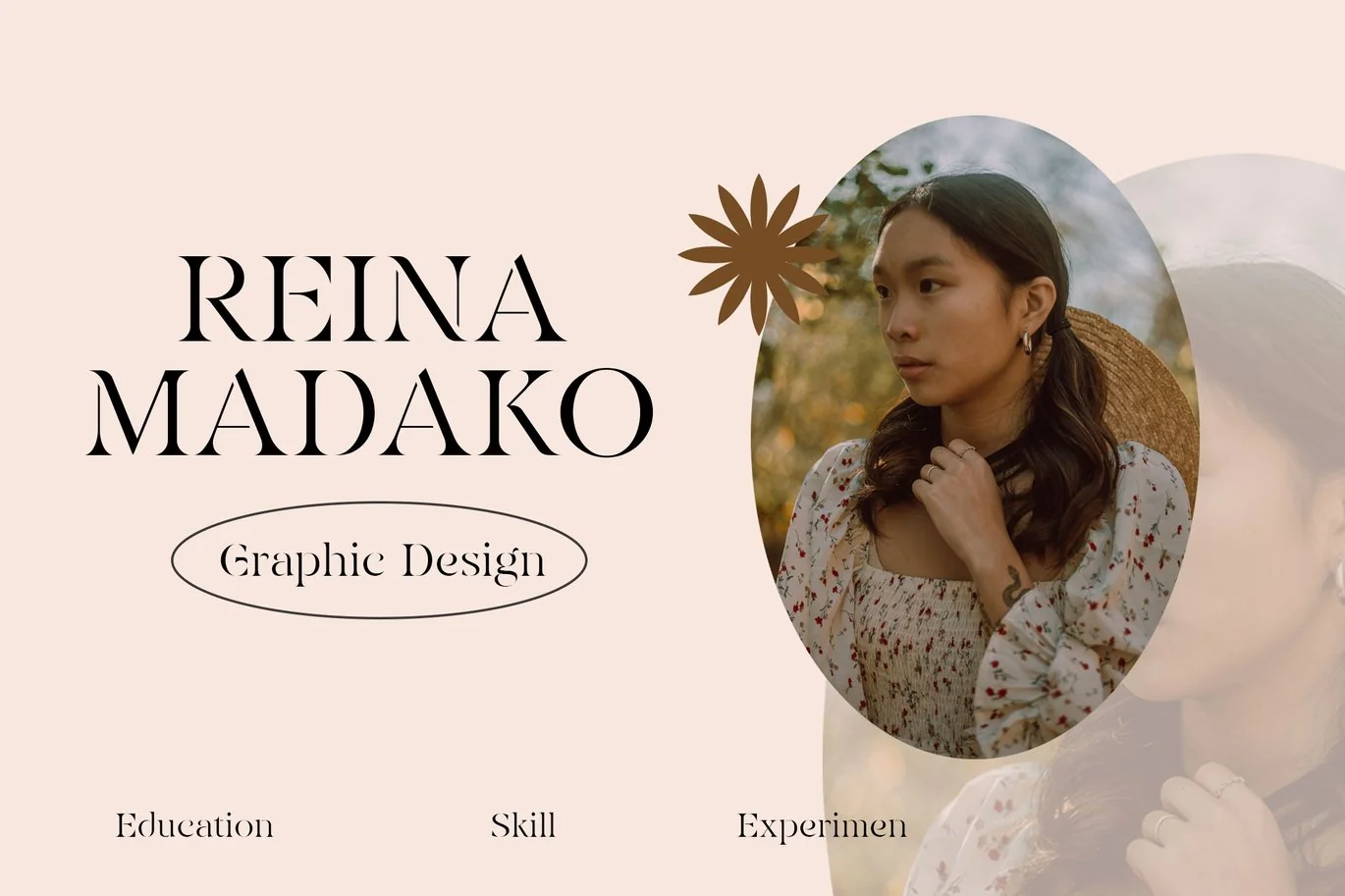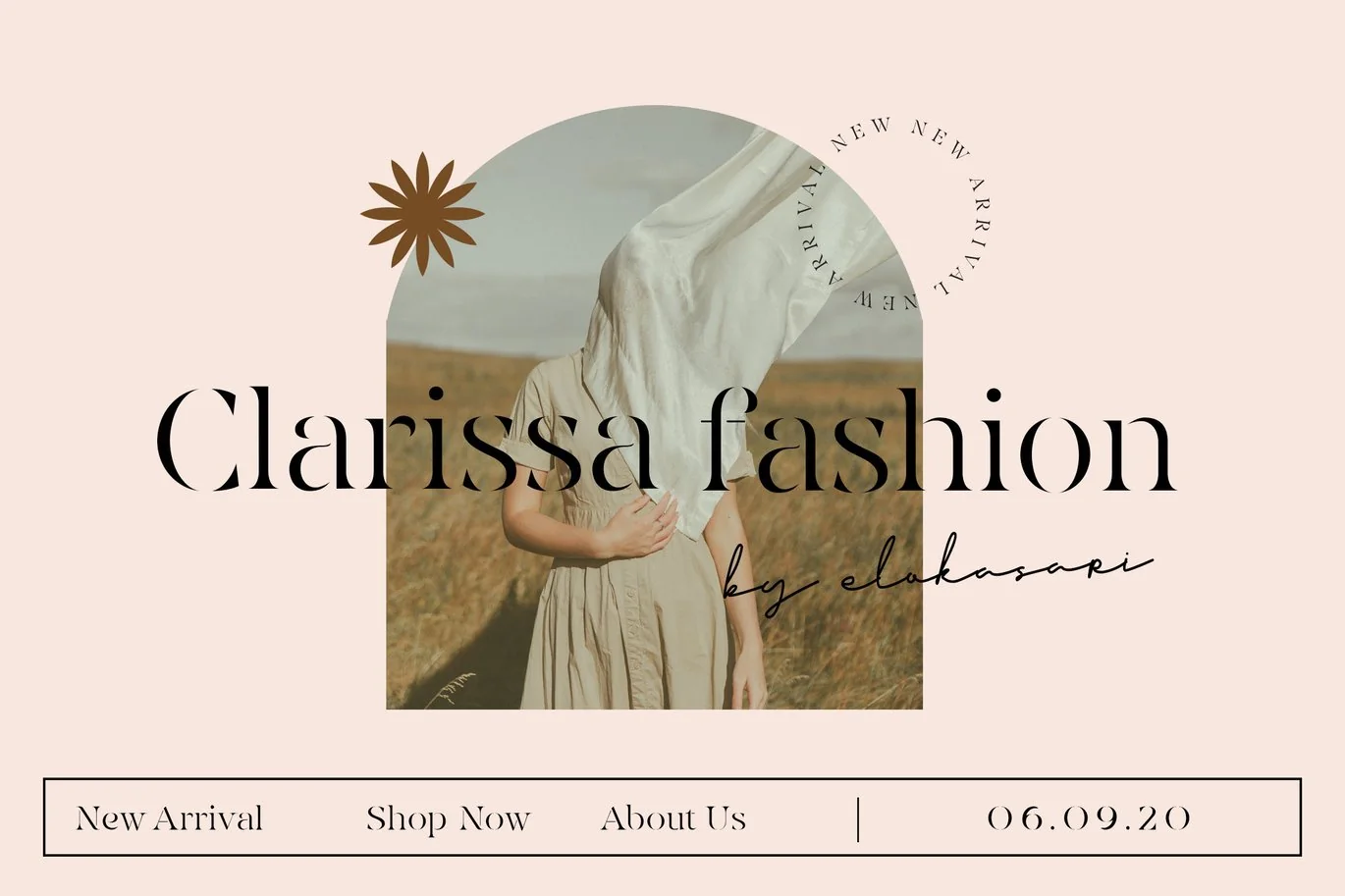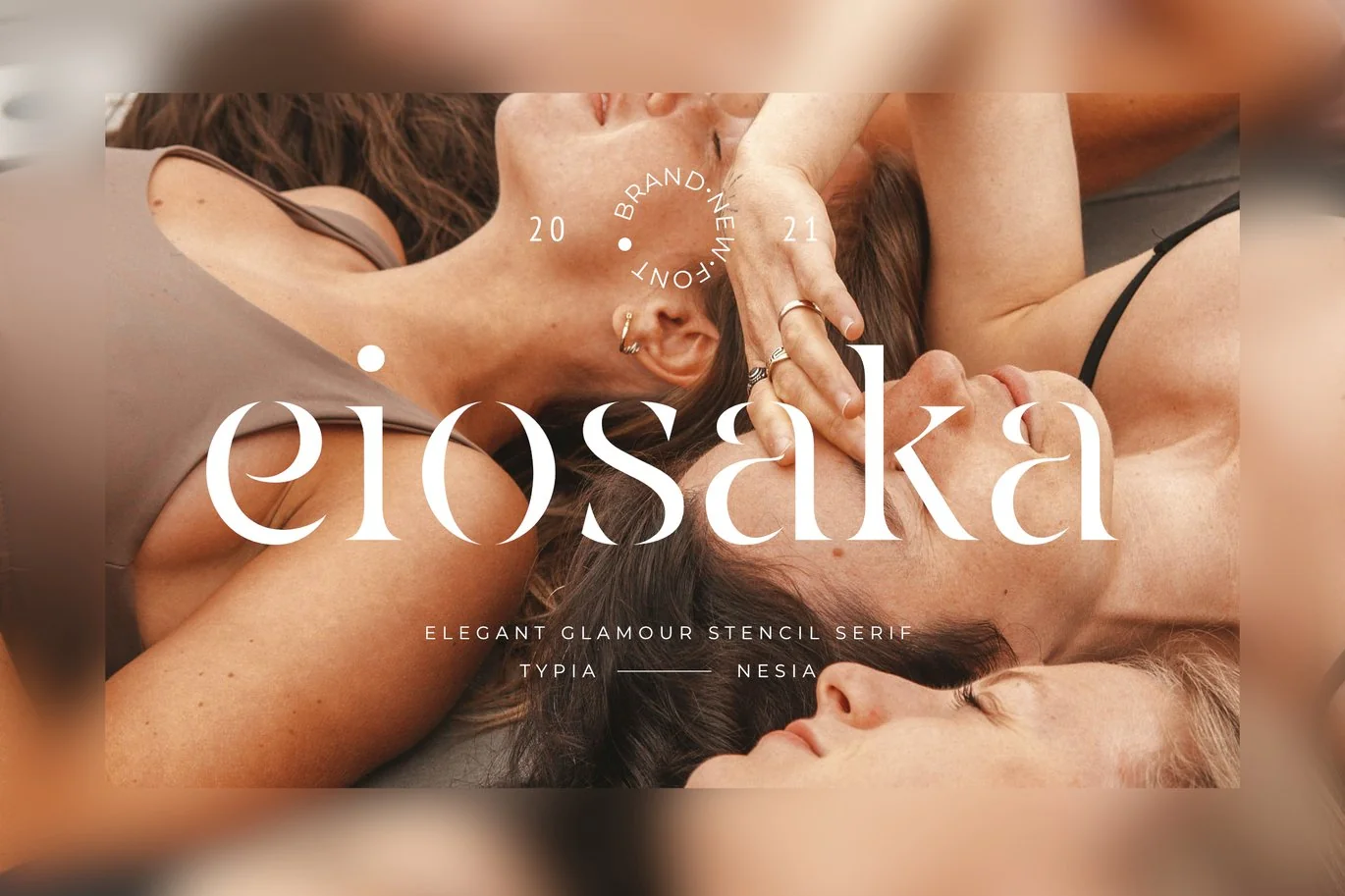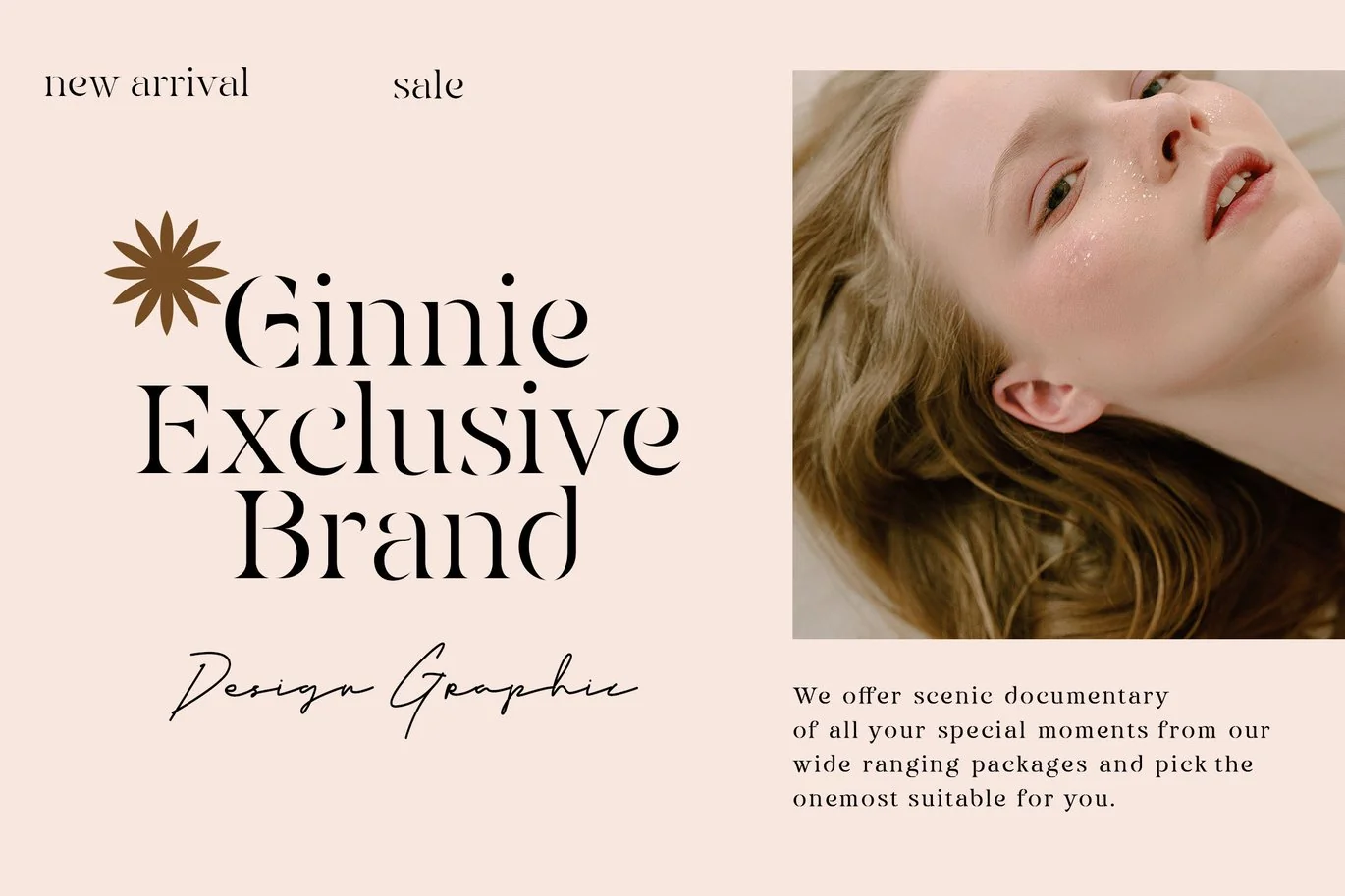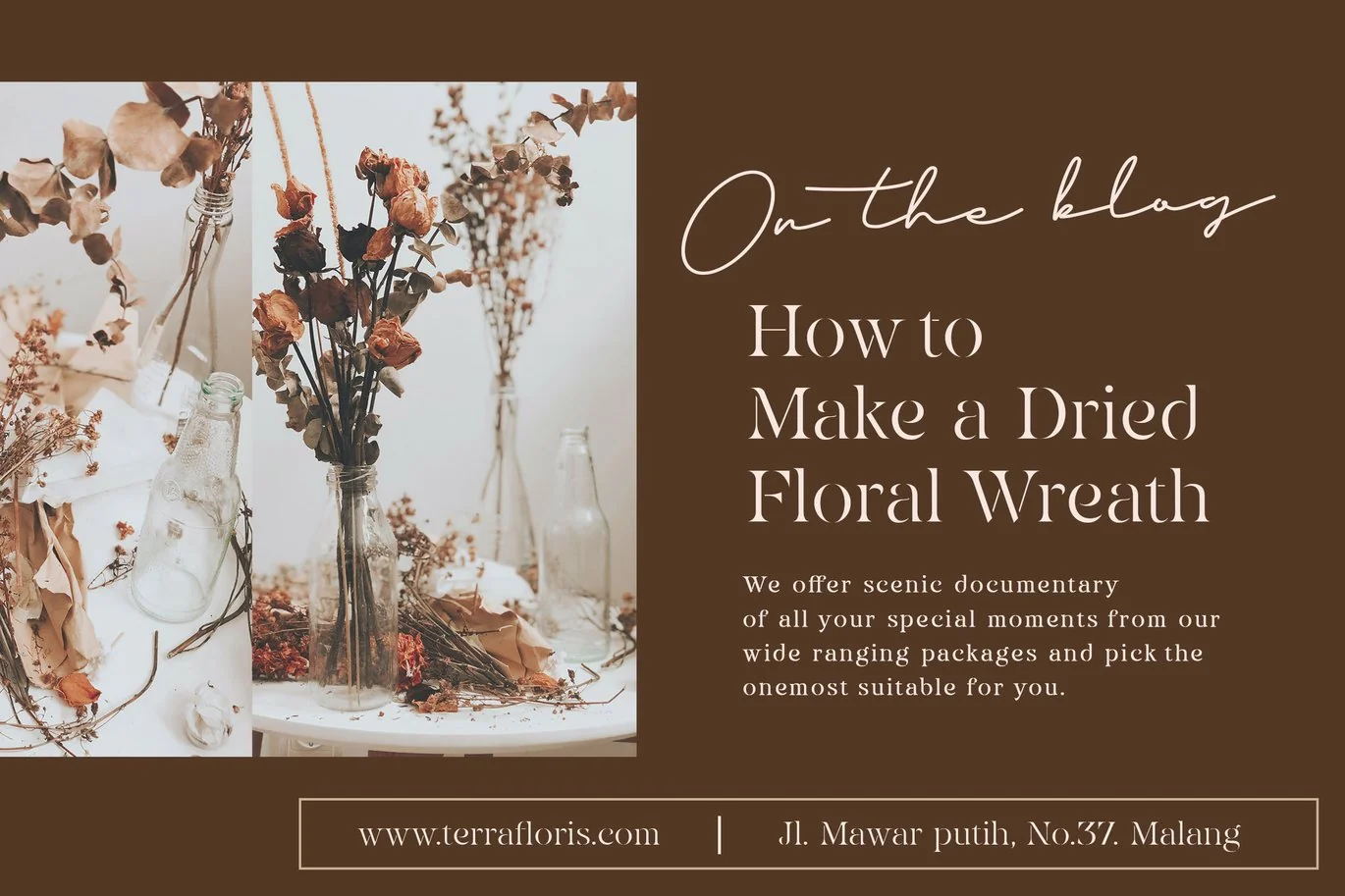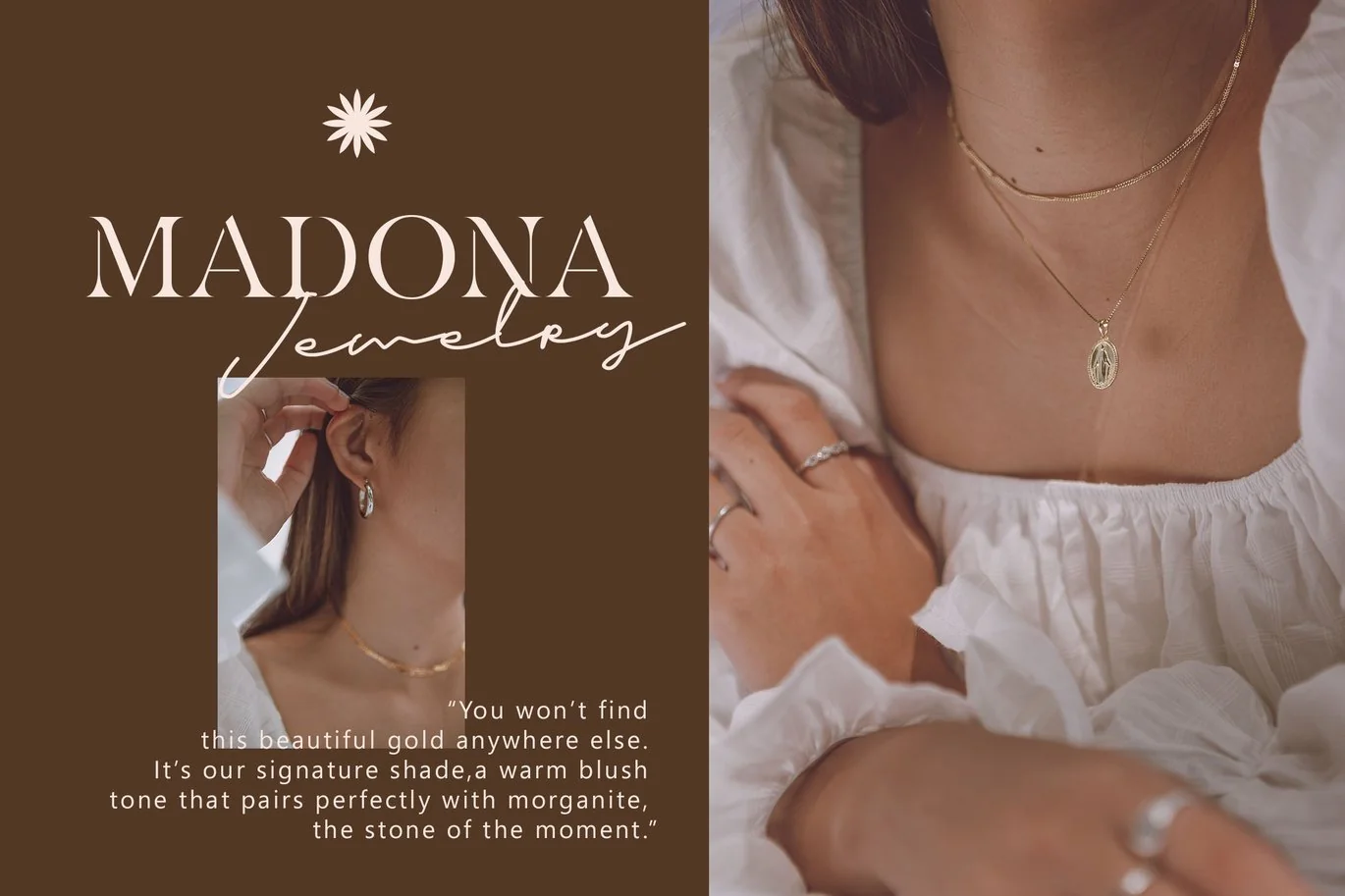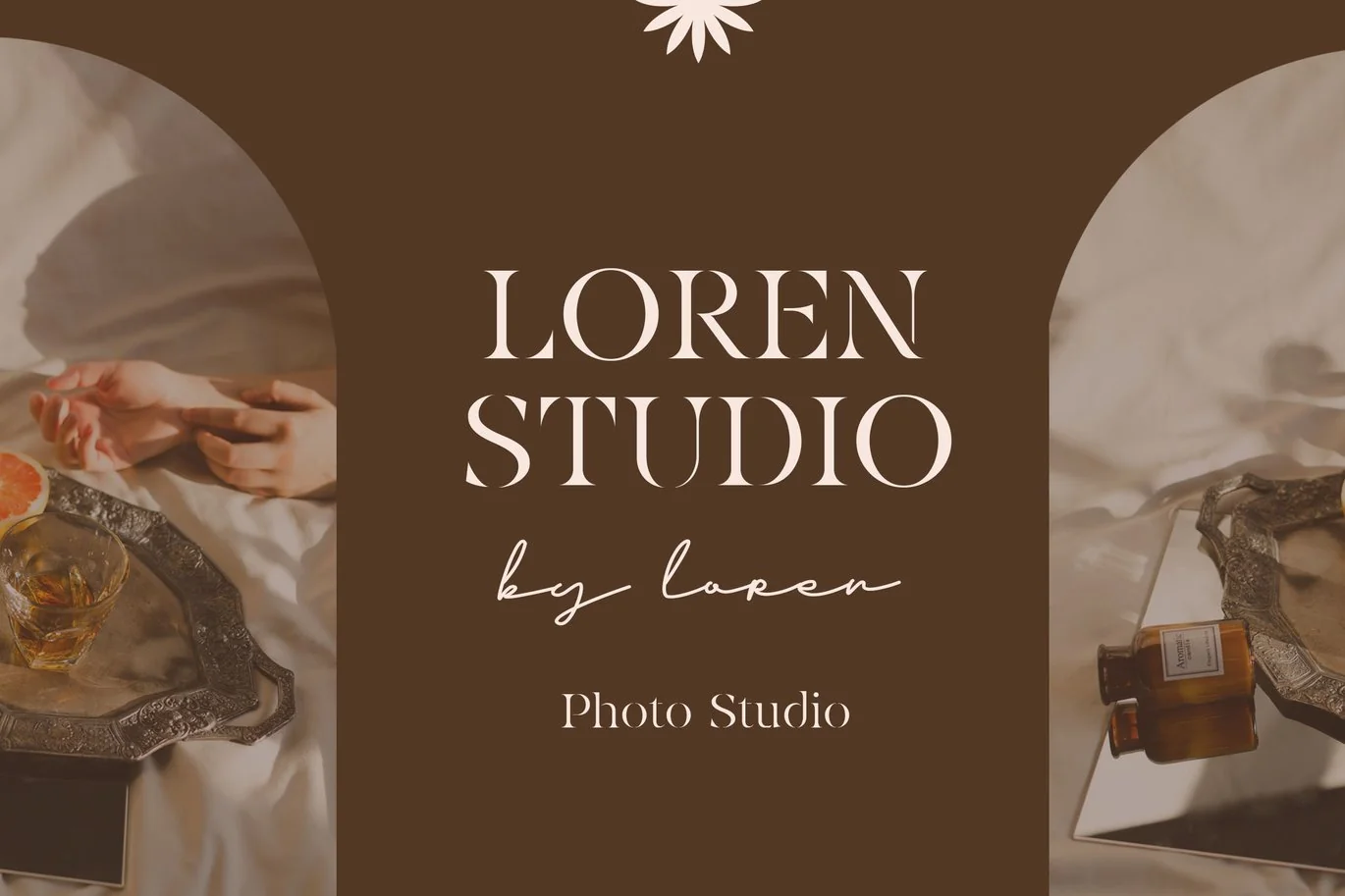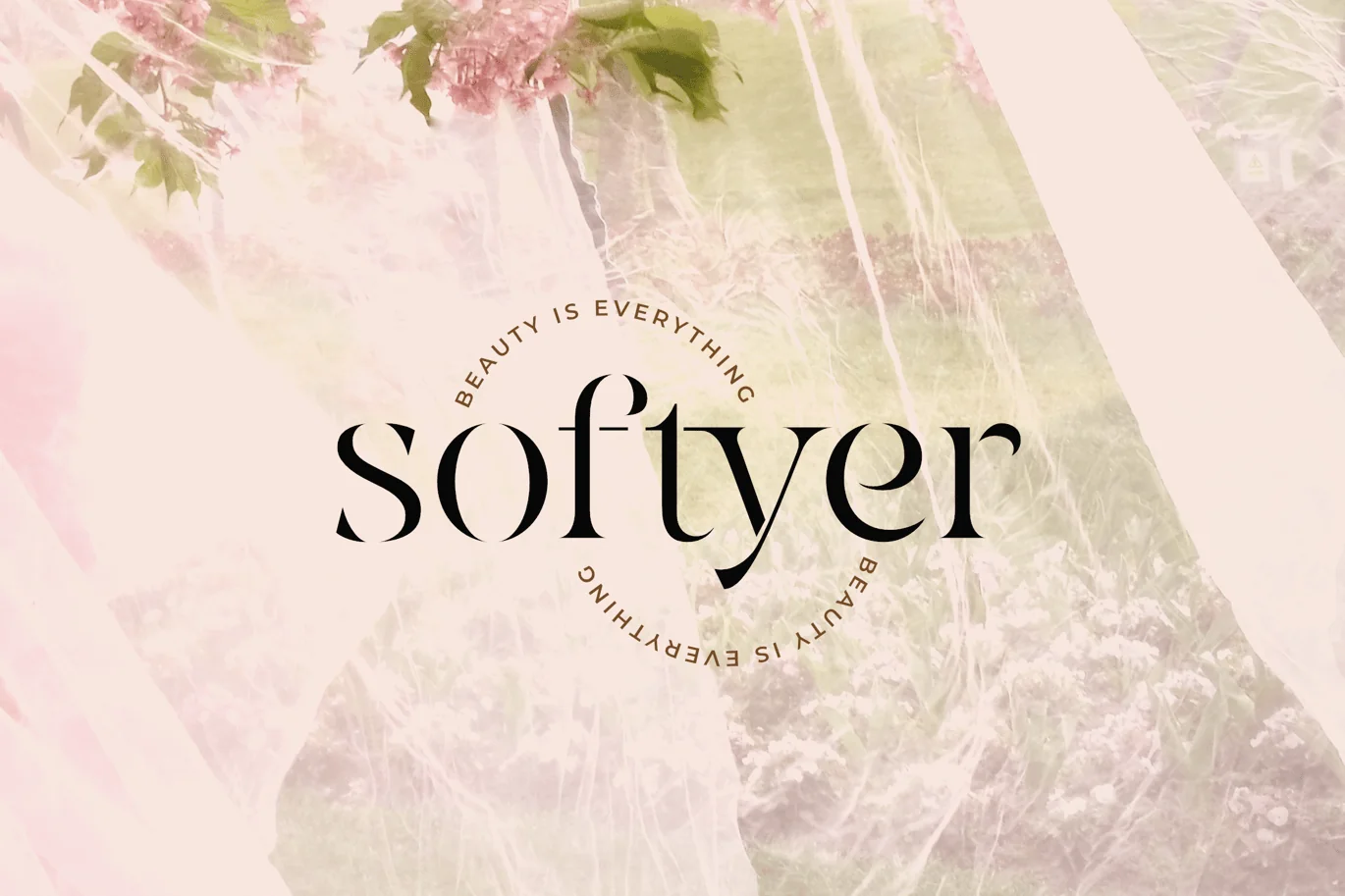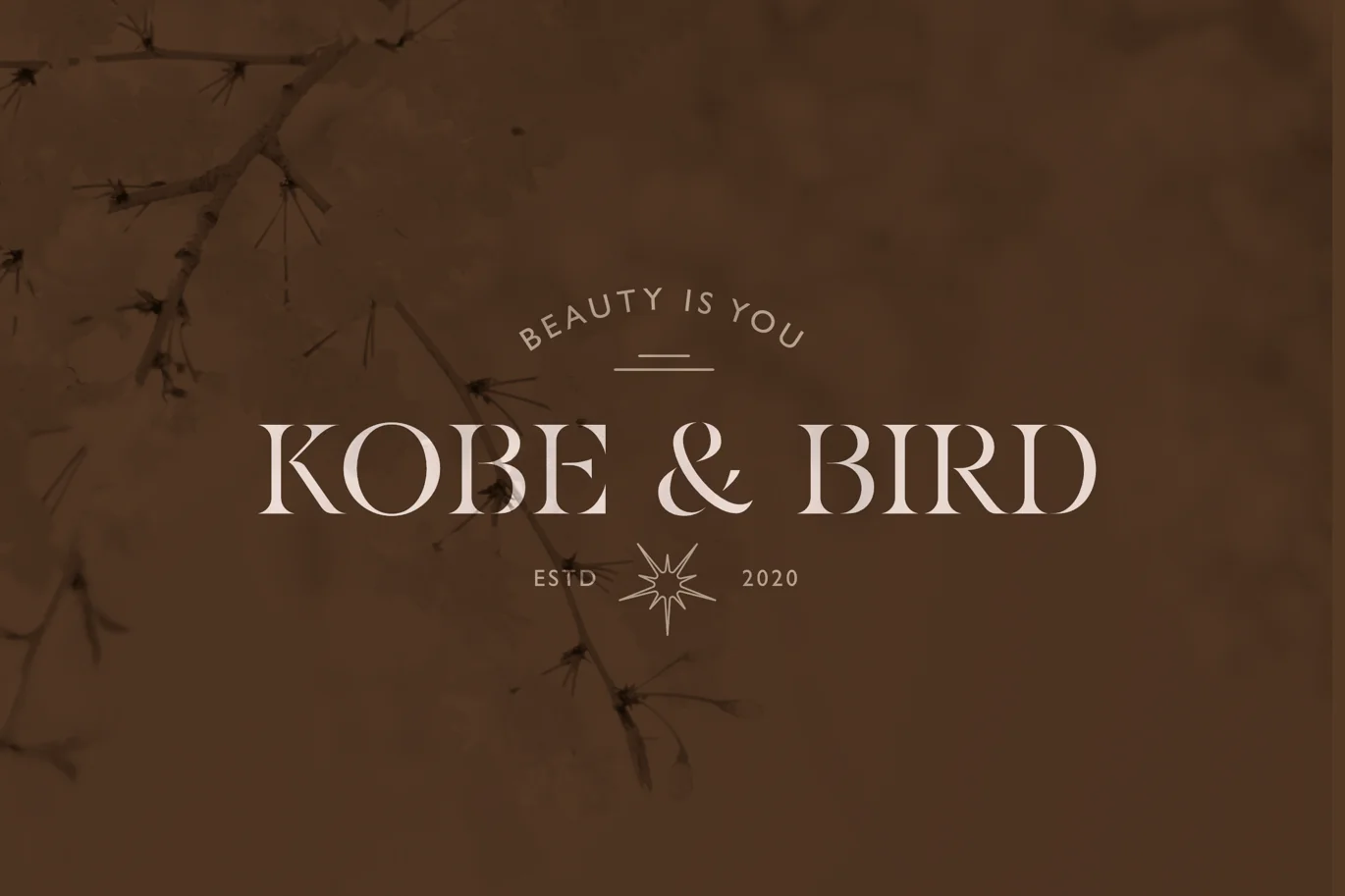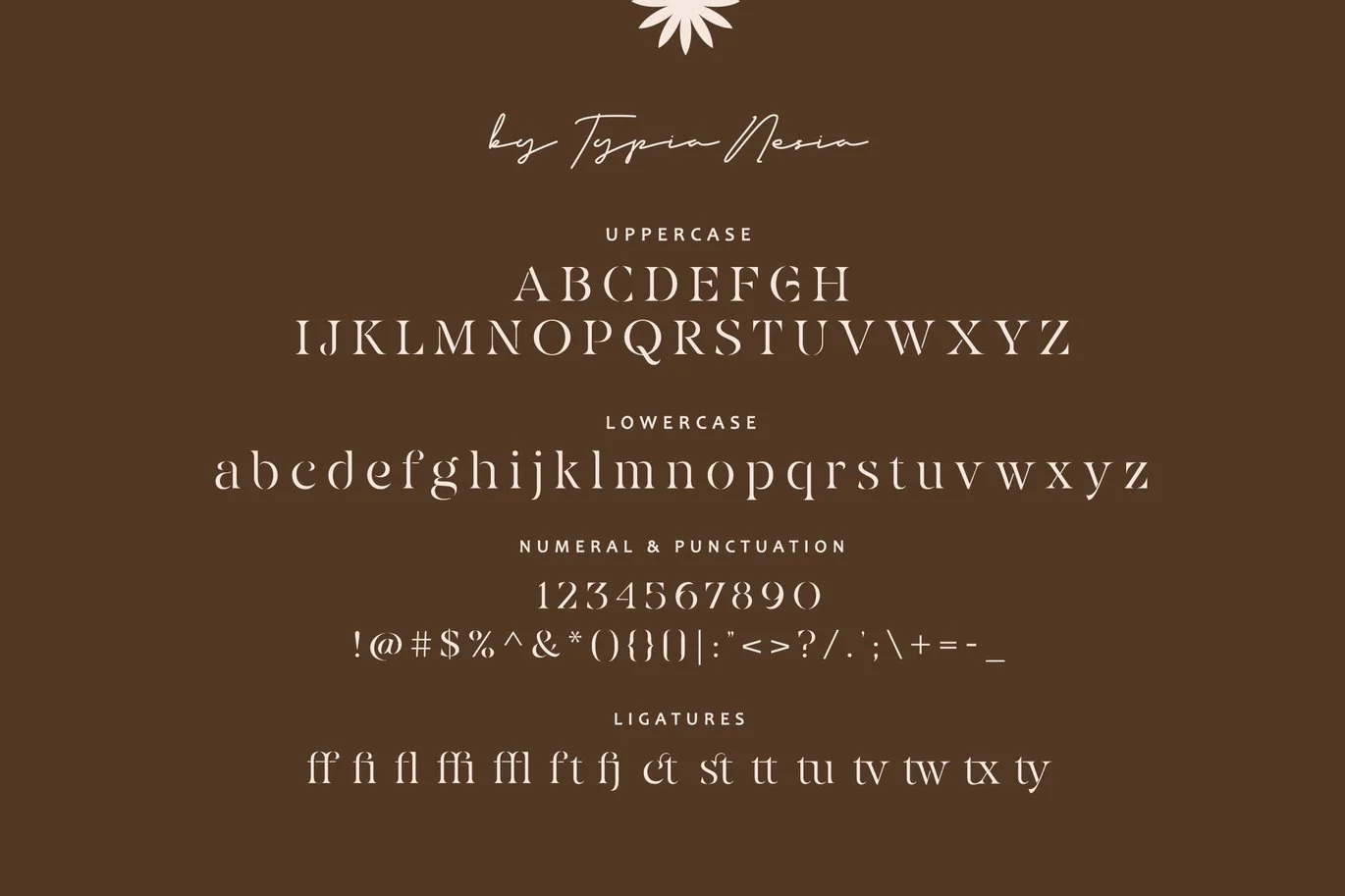
Eiosaka – Beauty Elegant Stencil Serif Font
Eiosaka – Beauty Elegant Stencil Serif – Fashion Classy Fancy Font
Eiosaka font comes with some ligatures, so you can combine it to make a perfect typography design. Eiosaka Elegant Stencil Serif font is perfect for your up coming projects. Such as luxury logo and branding, classy editorial design, woman magazine, cosmetic brand, fashion promotional, art gallery branding, museum, historical of architectural, boutique branding, stationery design, blog design, modern advertising design, card invitation, art quote, home decor, book/cover title, special events and any more.